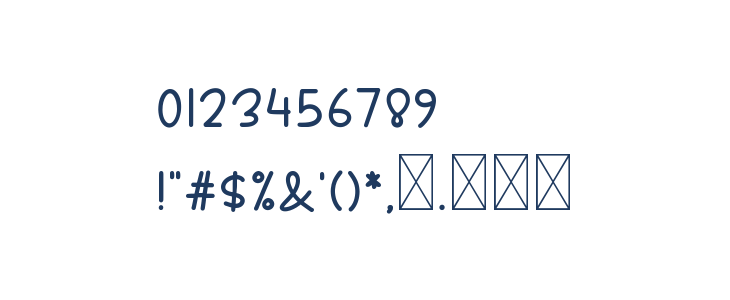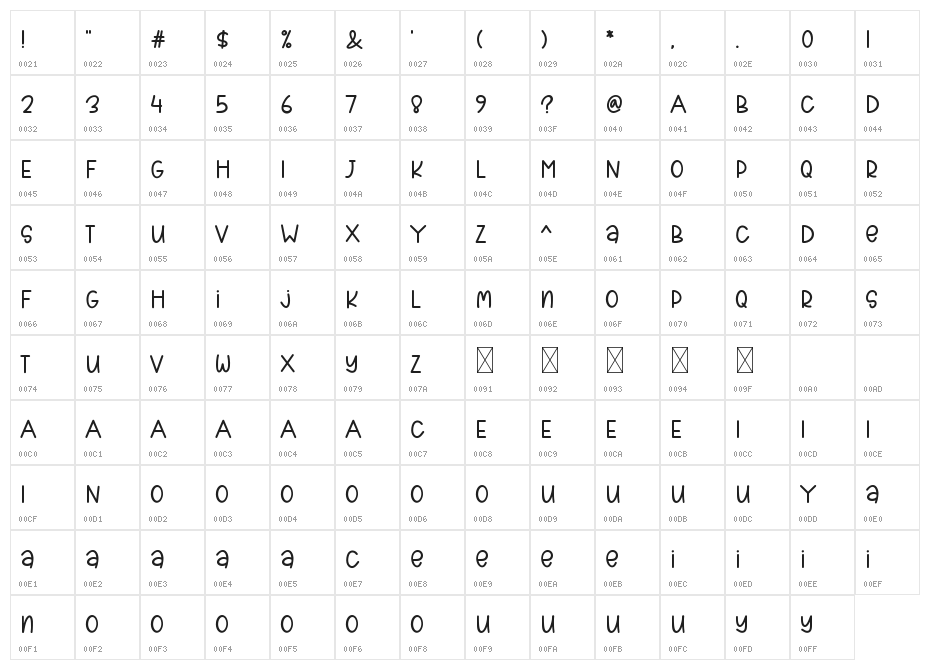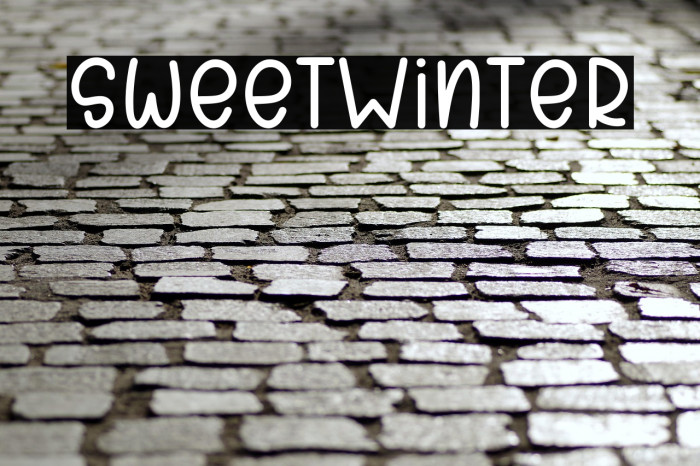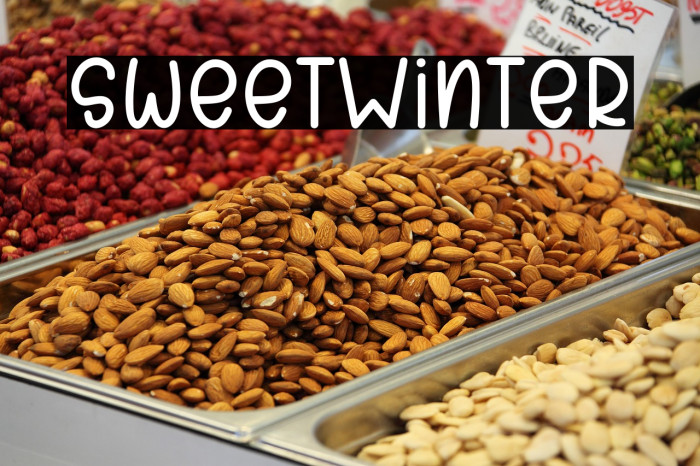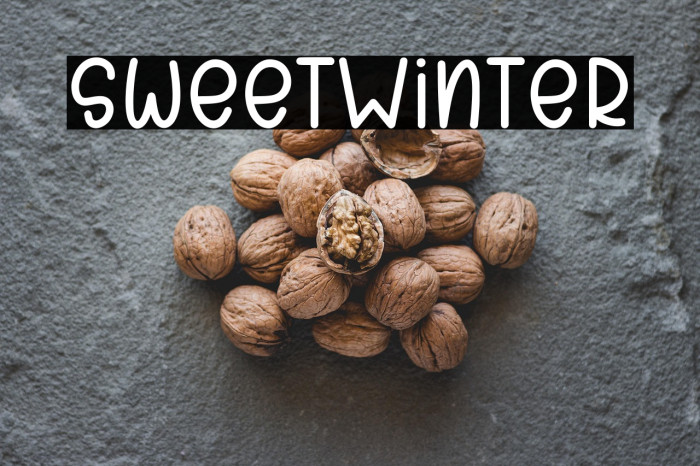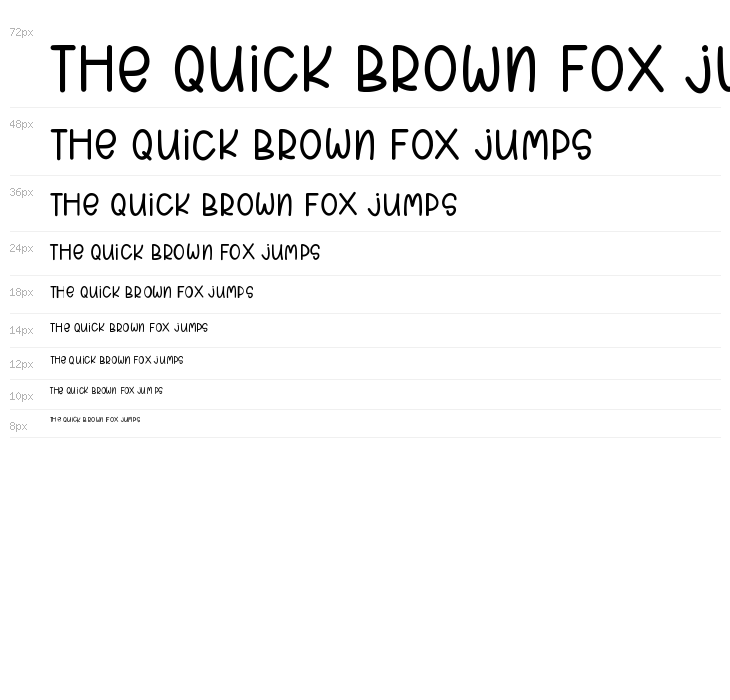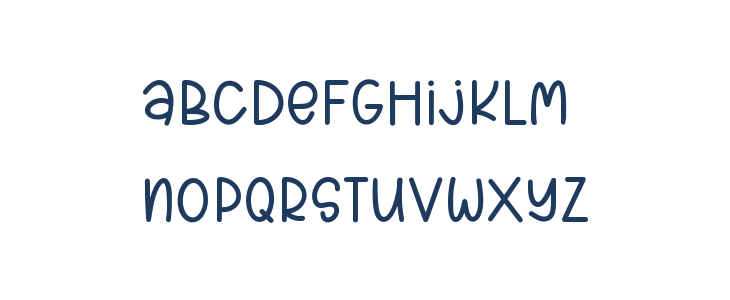
SweetWinter Font
SweetWinter Description
This playful and whimsical font features rounded, smooth edges and a hand-drawn aesthetic that gives it a friendly and approachable feel. The characters are evenly spaced with a consistent stroke width, creating a harmonious and balanced appearance. Its informal style is reminiscent of casual handwriting, making it perfect for projects that require a personal touch. The font includes both uppercase and lowercase letters, numerals, and a selection of special characters, ensuring versatility in its application.
| Proposed Projects | Ideal for children's books, greeting cards, playful branding, and social media graphics. |